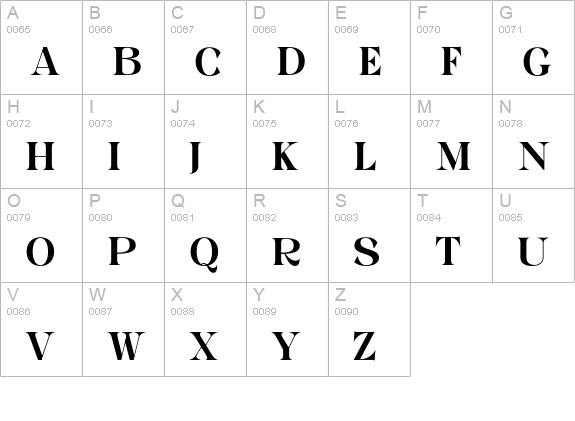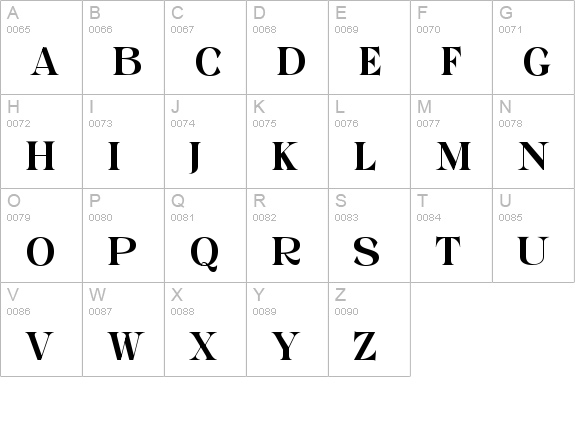
baleny Font Details
baleny is a demo font in the General > Serif category, designed by craftsupplyco. It has been downloaded 30 times and is available for Windows, Mac and Linux.
Baleny font is a stylish and modern typeface that exudes elegance and sophistication. Its sleek lines and graceful curves make it perfect for a wide range of design projects, from branding to editorial design. The versatility of Baleny font allows it to be used in various contexts, whether you're creating a sleek logo or designing a sophisticated wedding invitation.